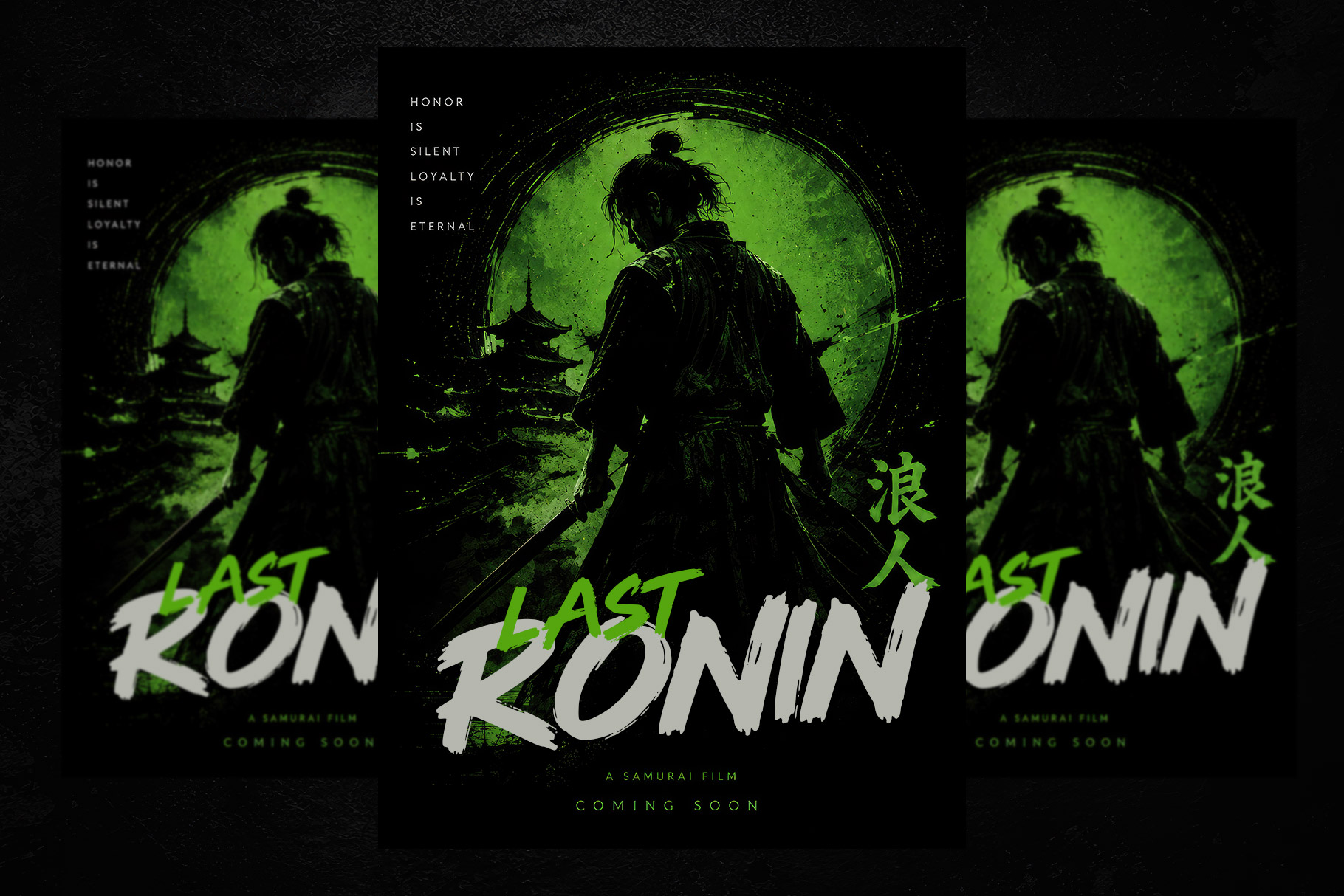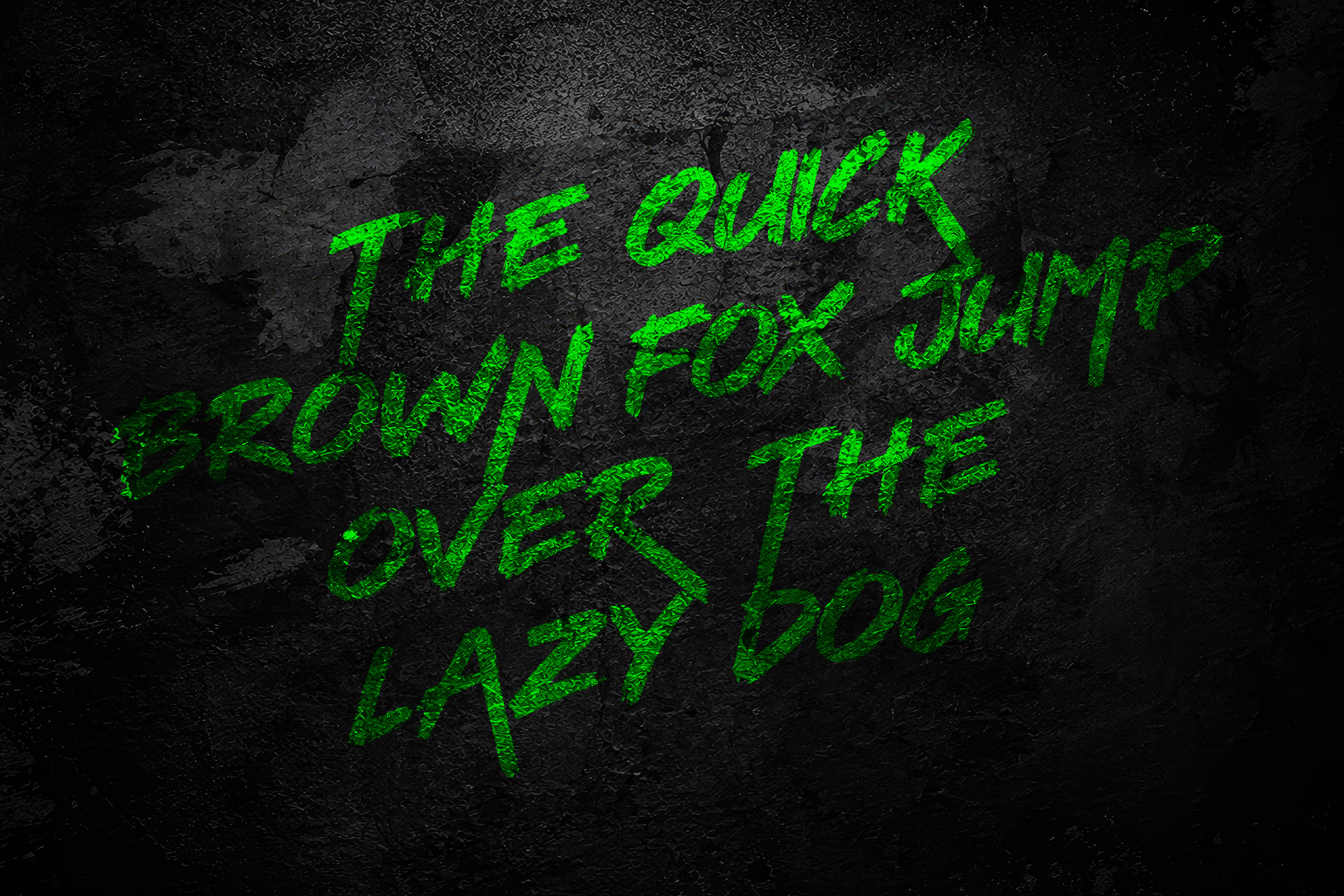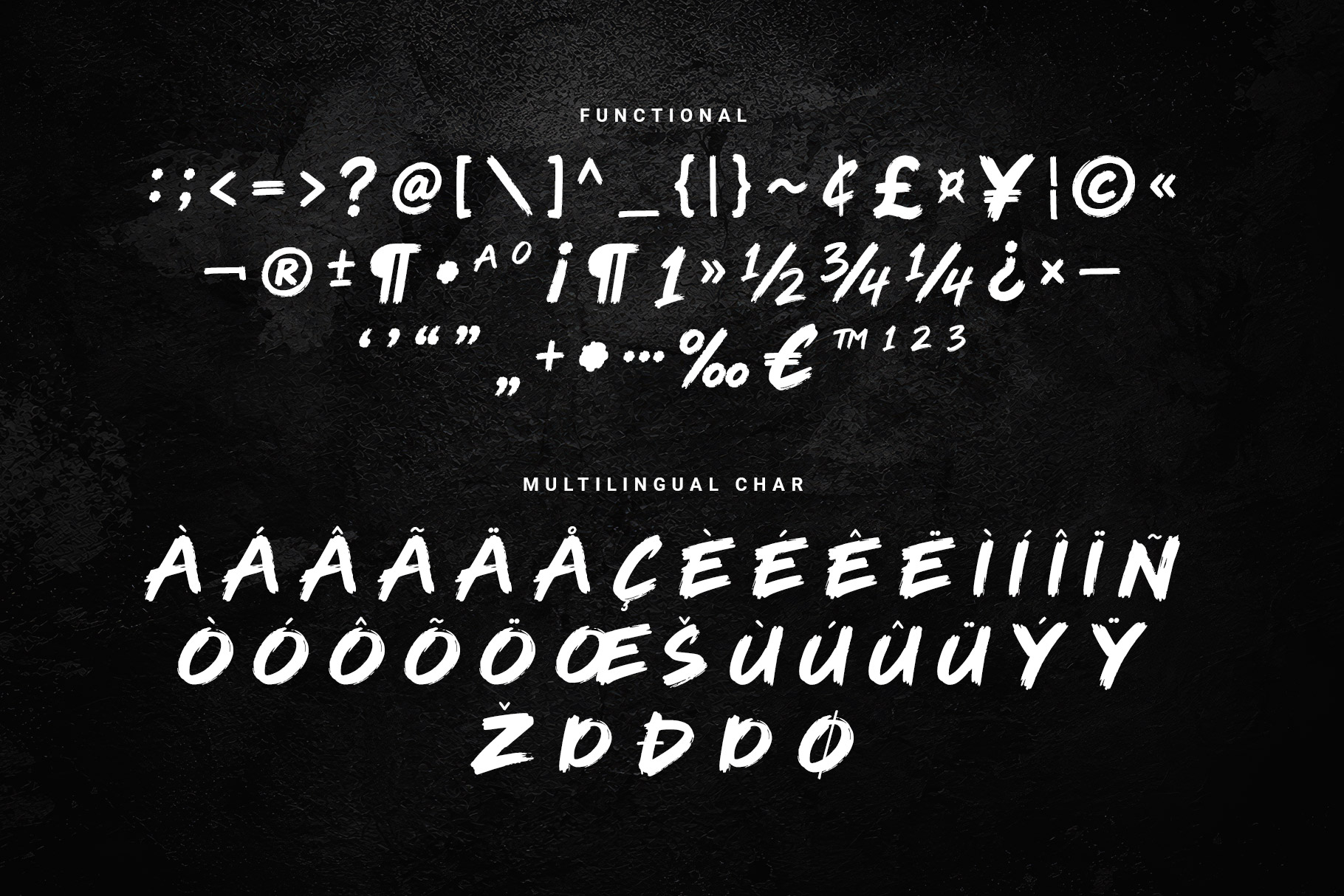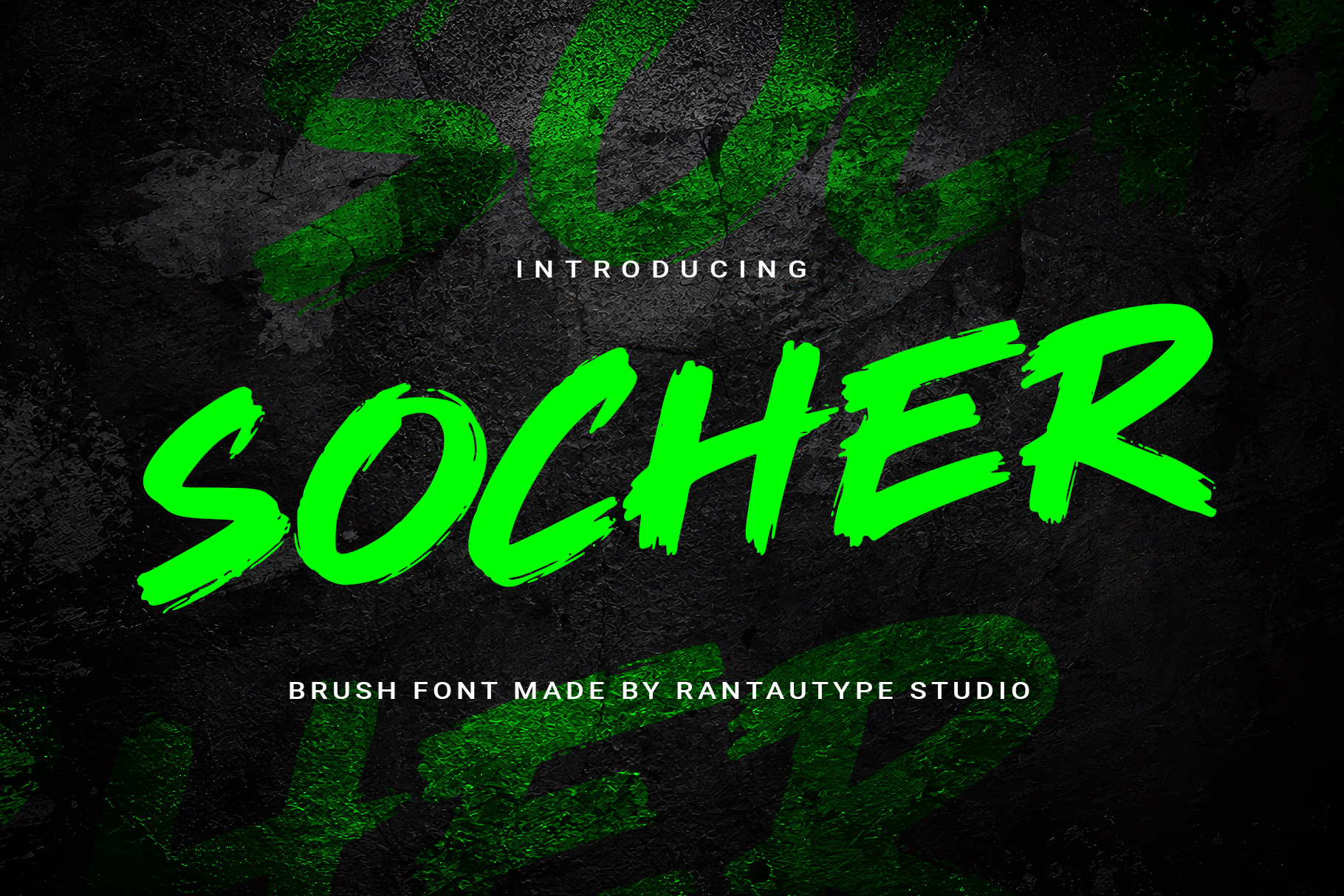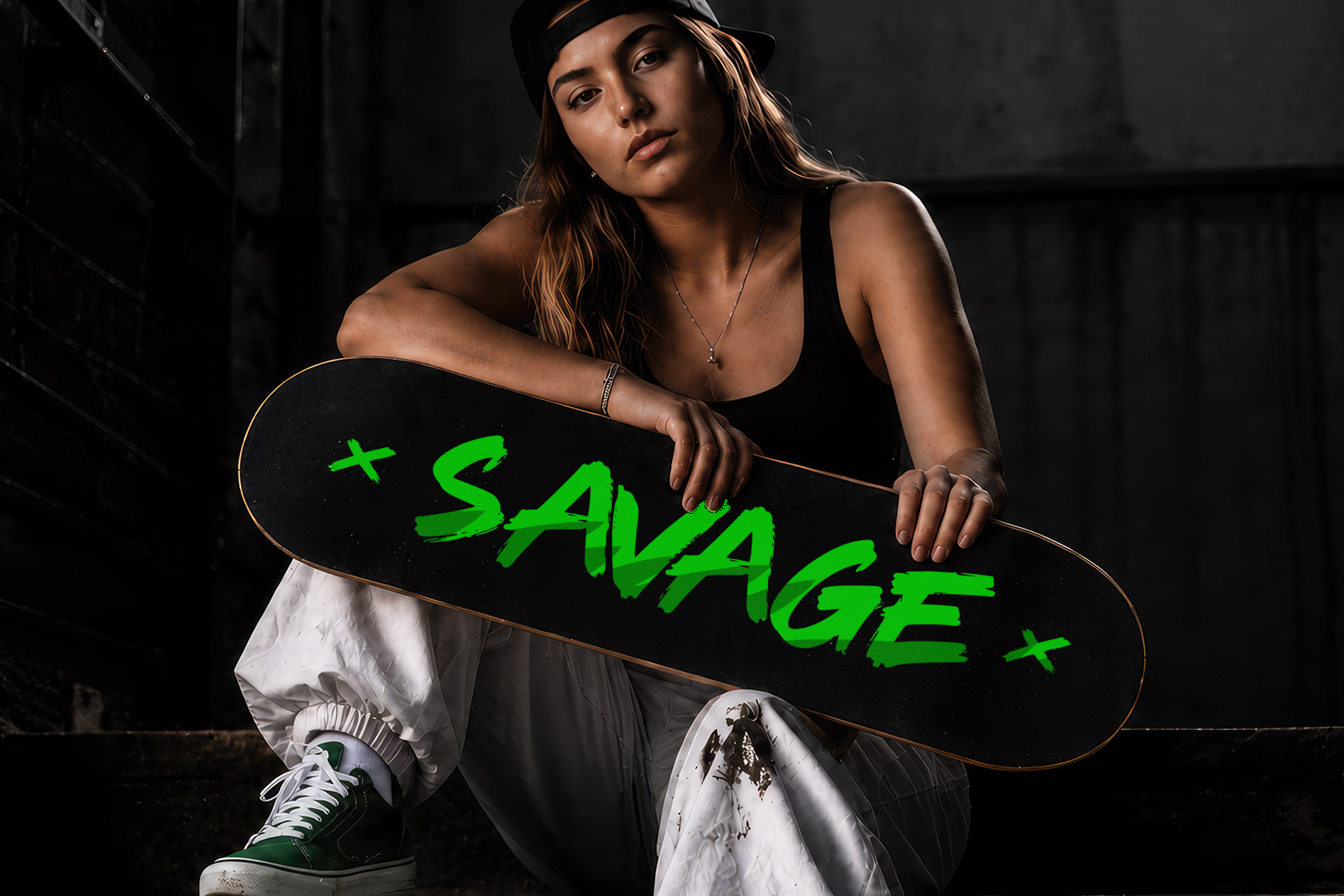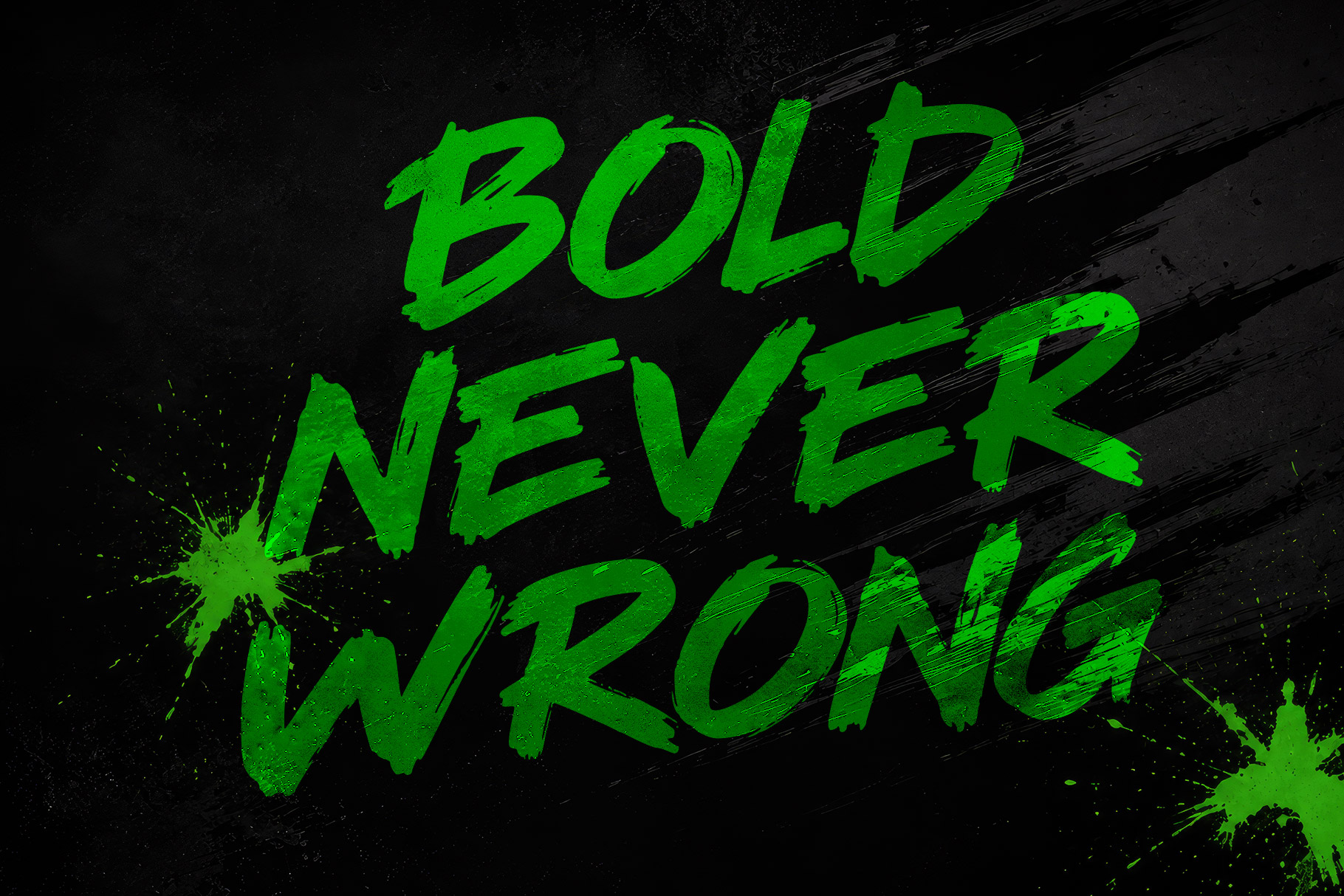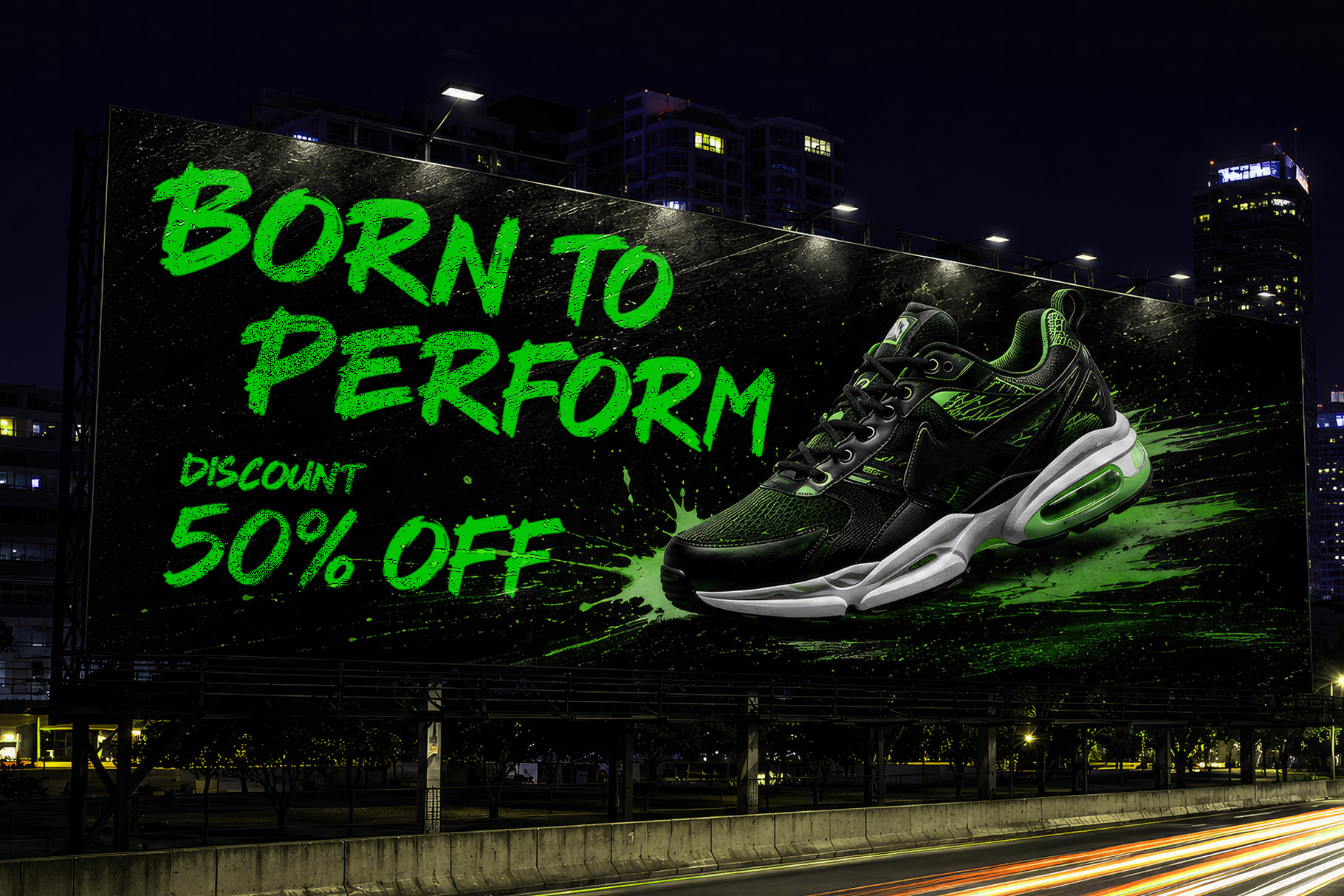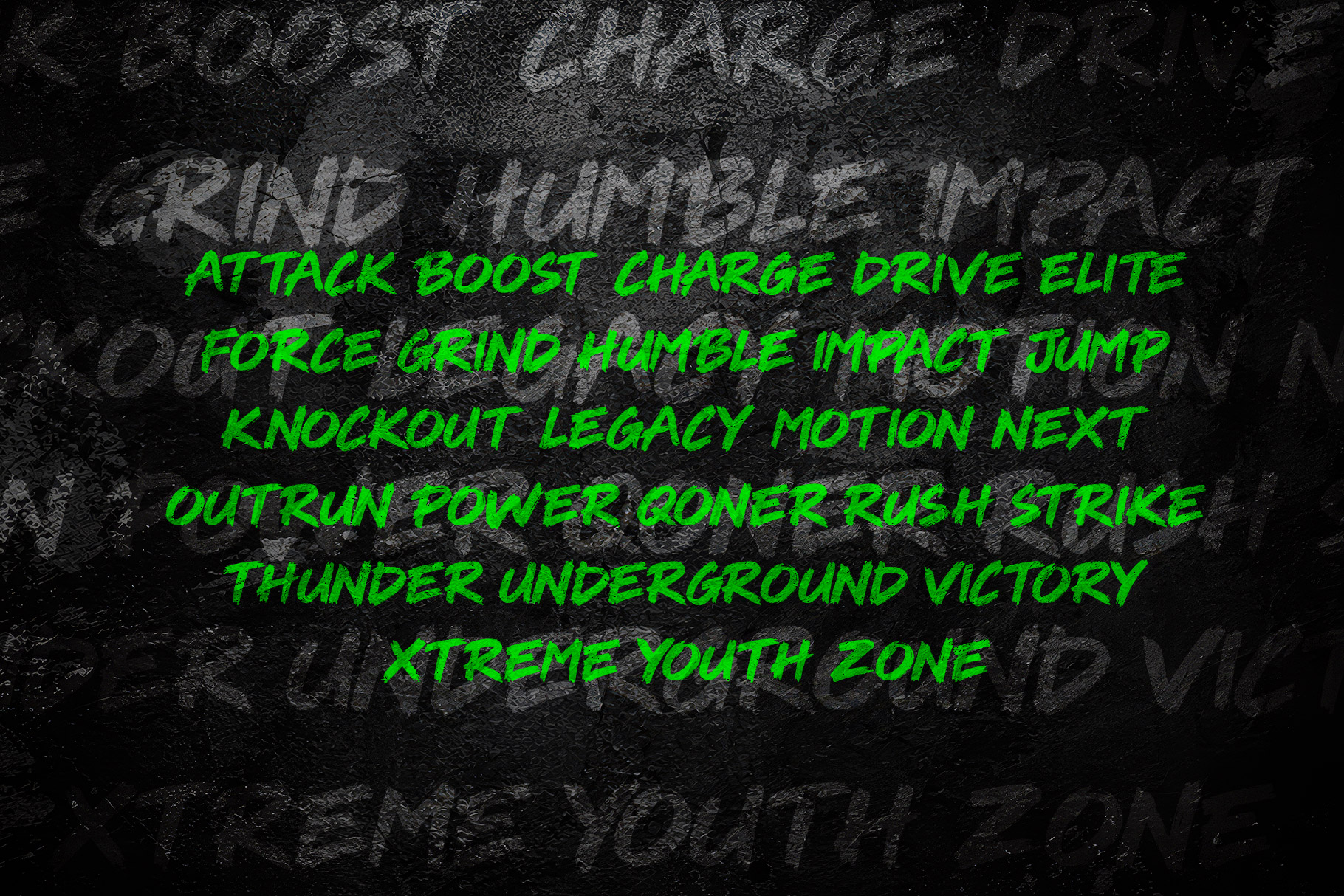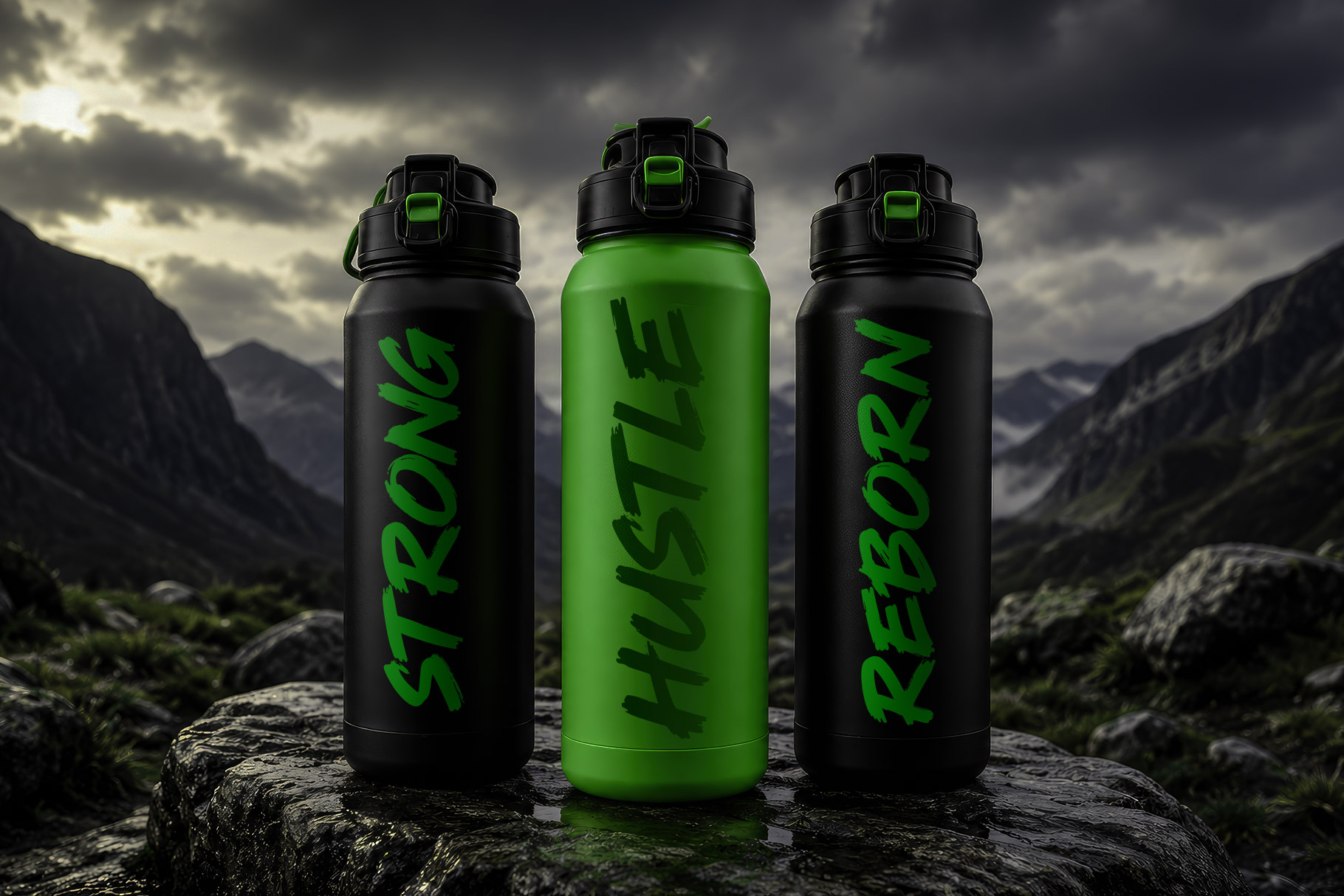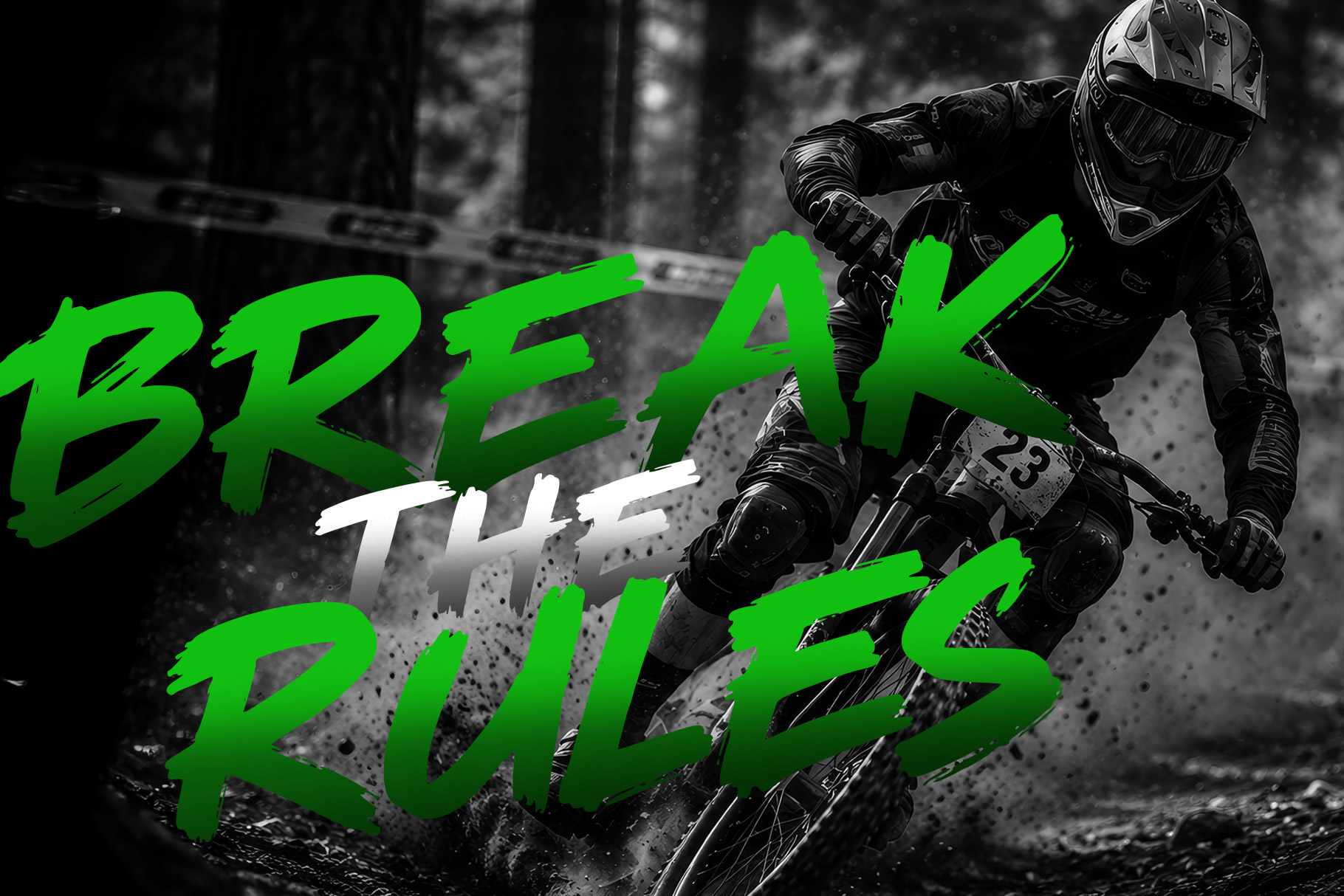
Socher is brush font delivers an energetic, fearless personality inspired by bold marker strokes, urban graffiti, and fast-paced street culture Socher is a perfectly choice for any creative endeavor, creating, modern, lifestyle design such as logotype, title, cover, branding, invitations, display and magazine, social media posts, advertisements, printed quotes, product packaging, corporate brand, product designs, labels, watermarks, special events and any other project with street touch.
Socher Brush Font